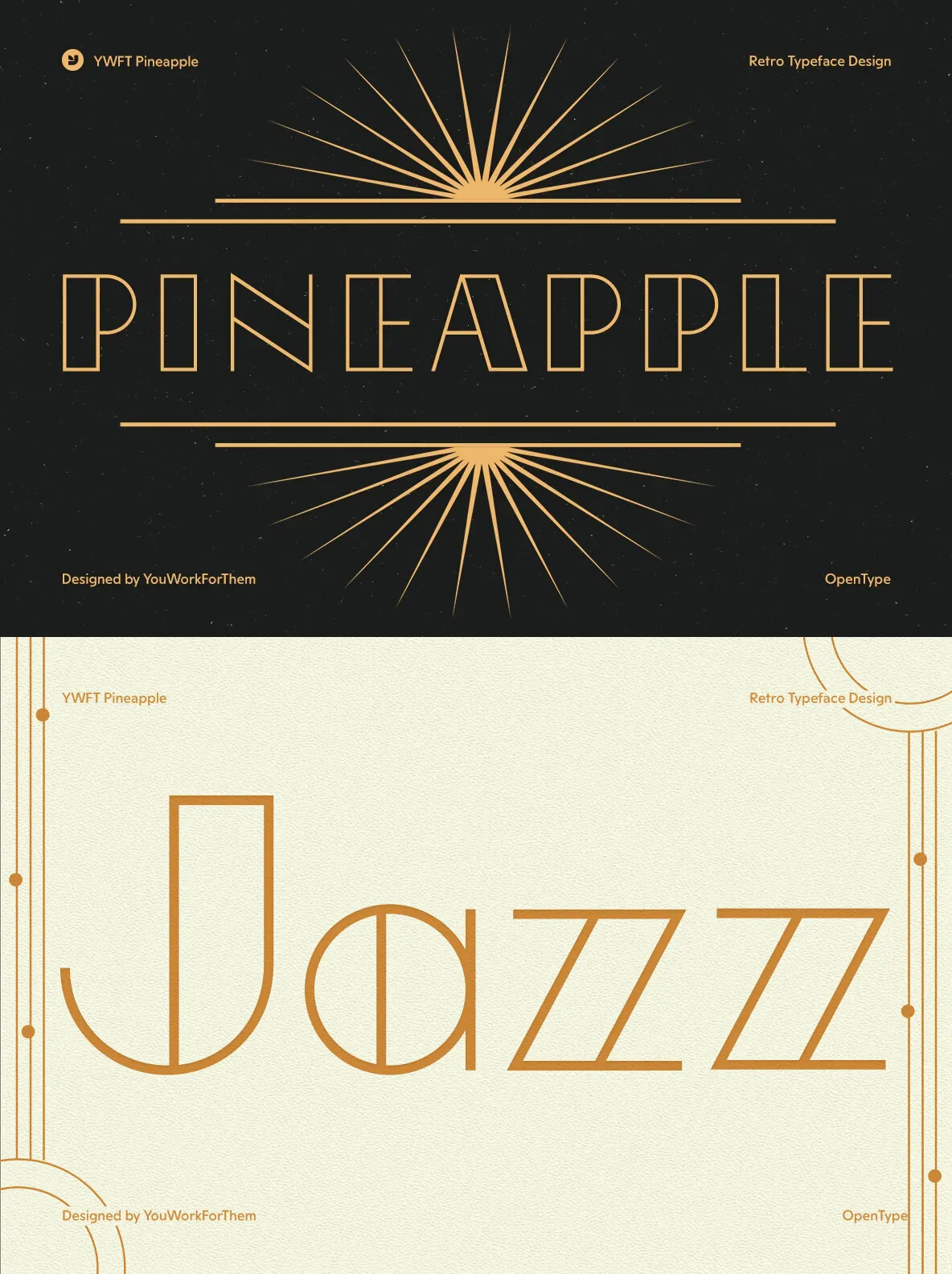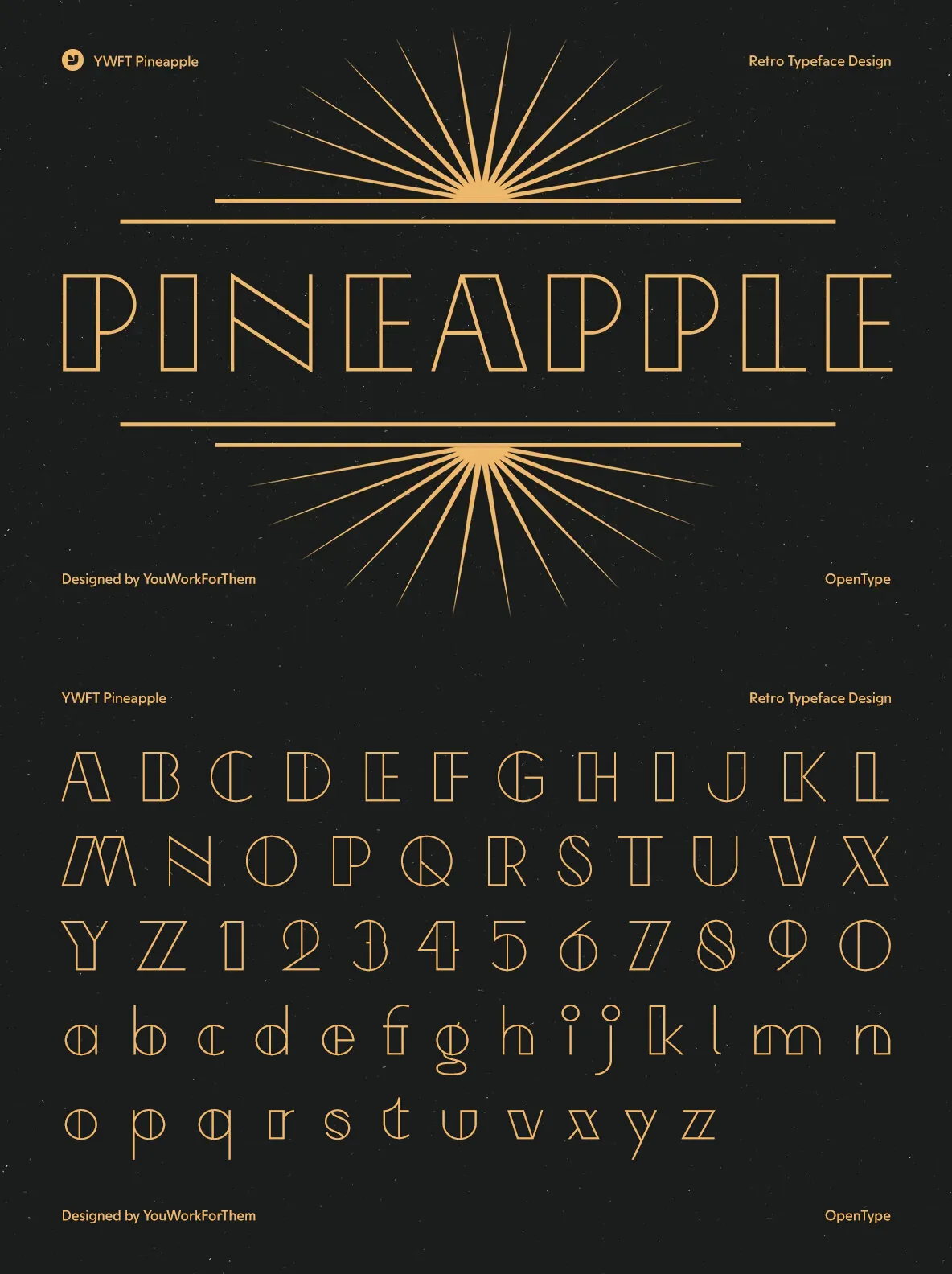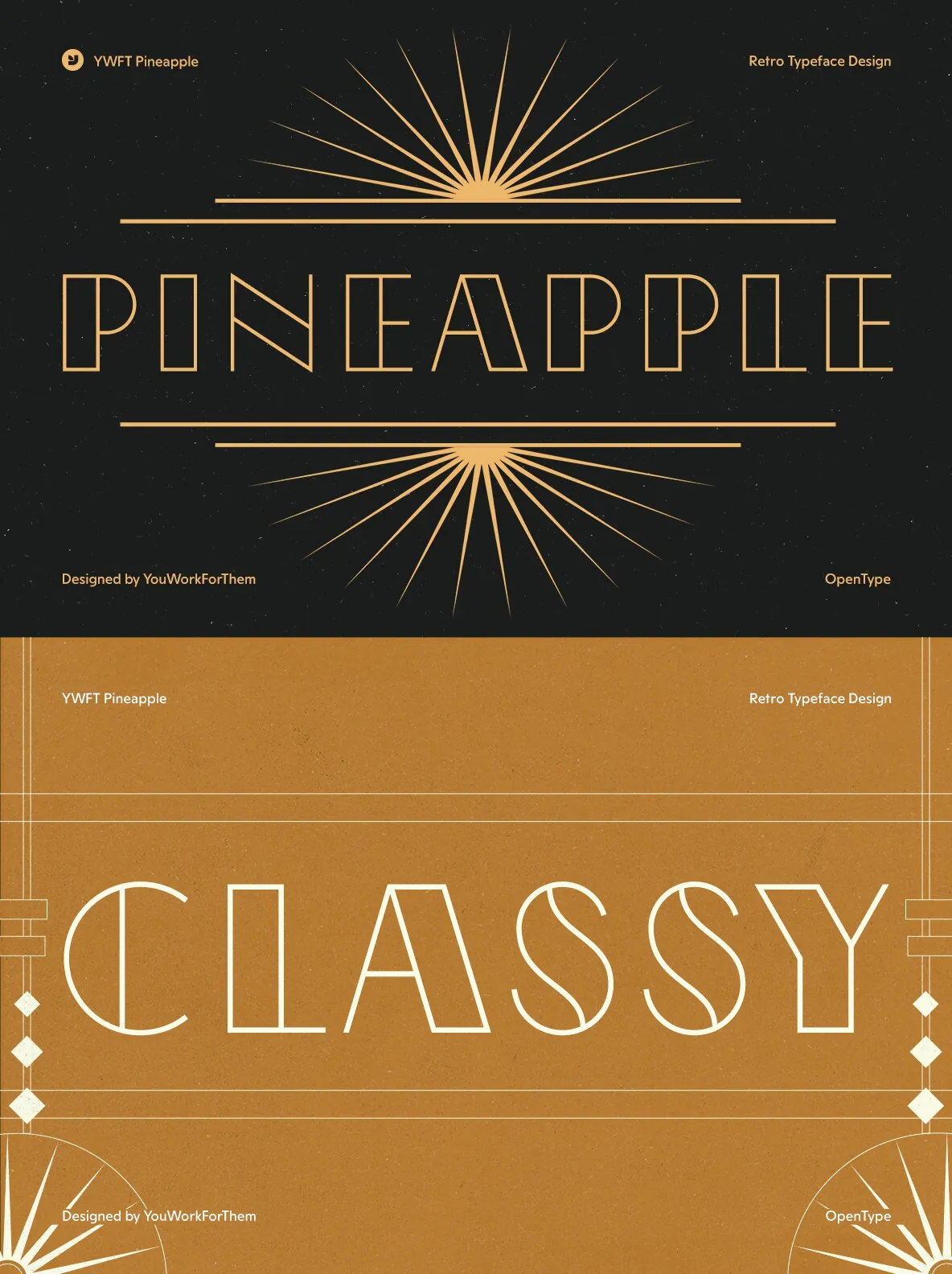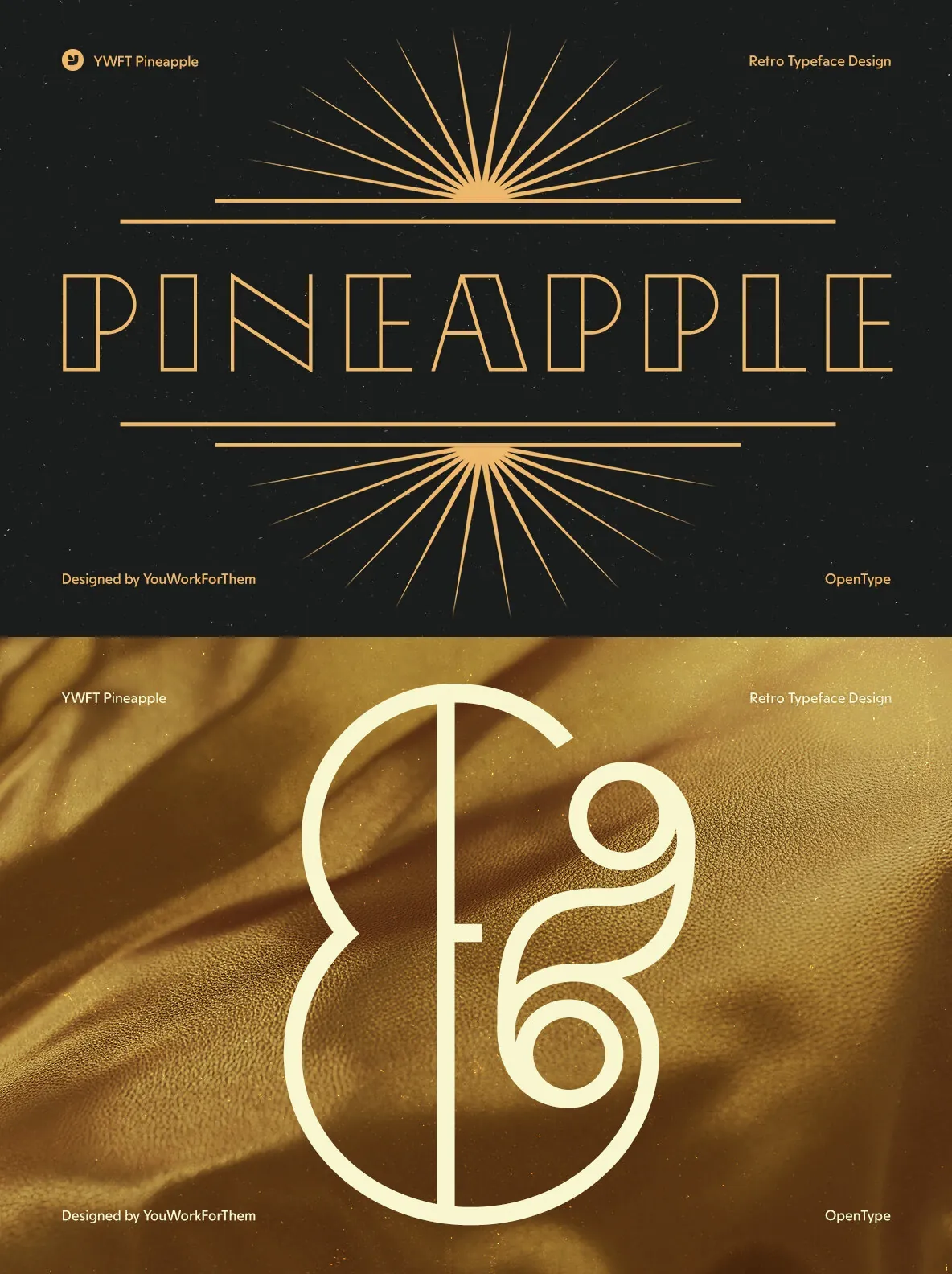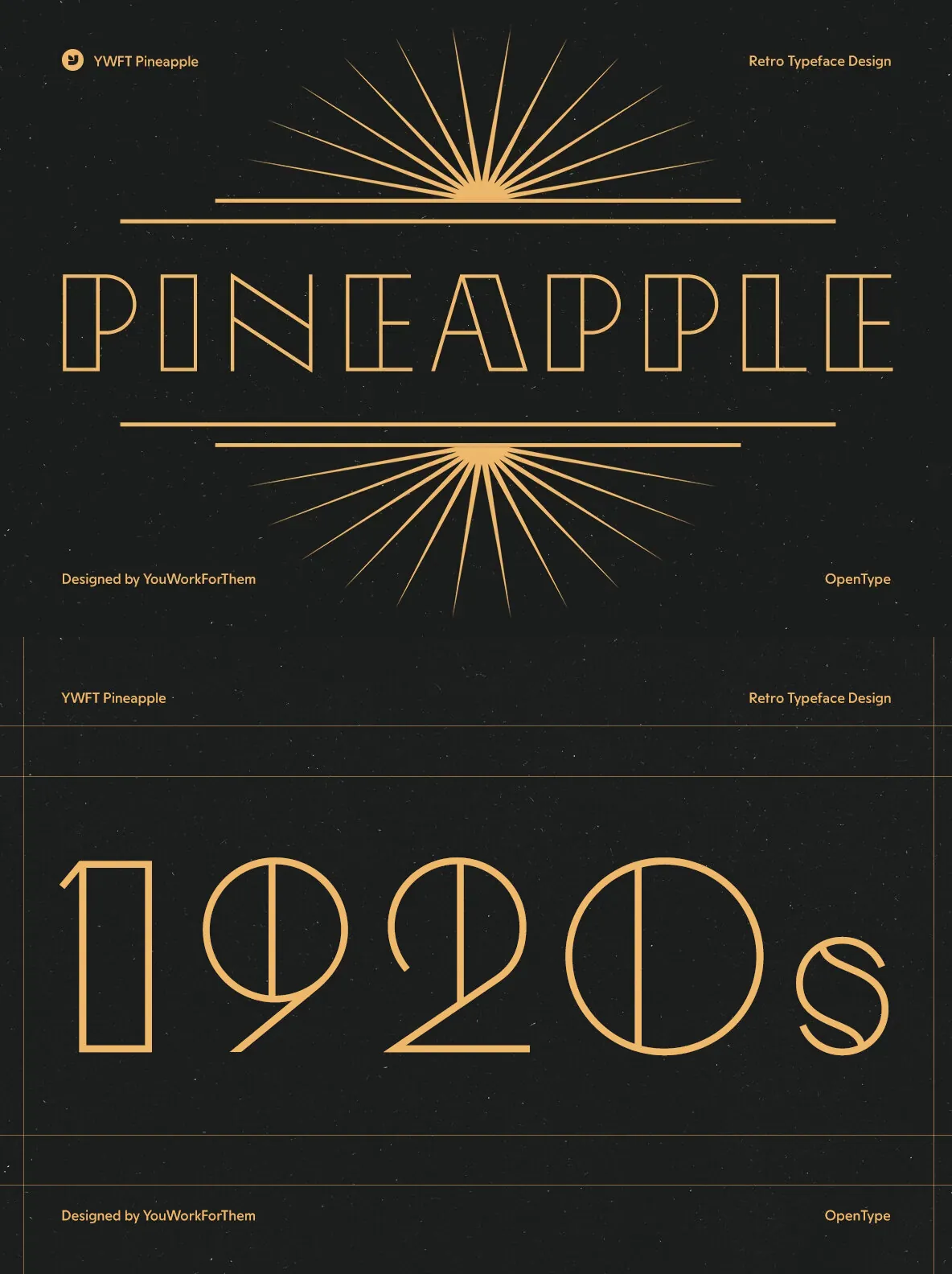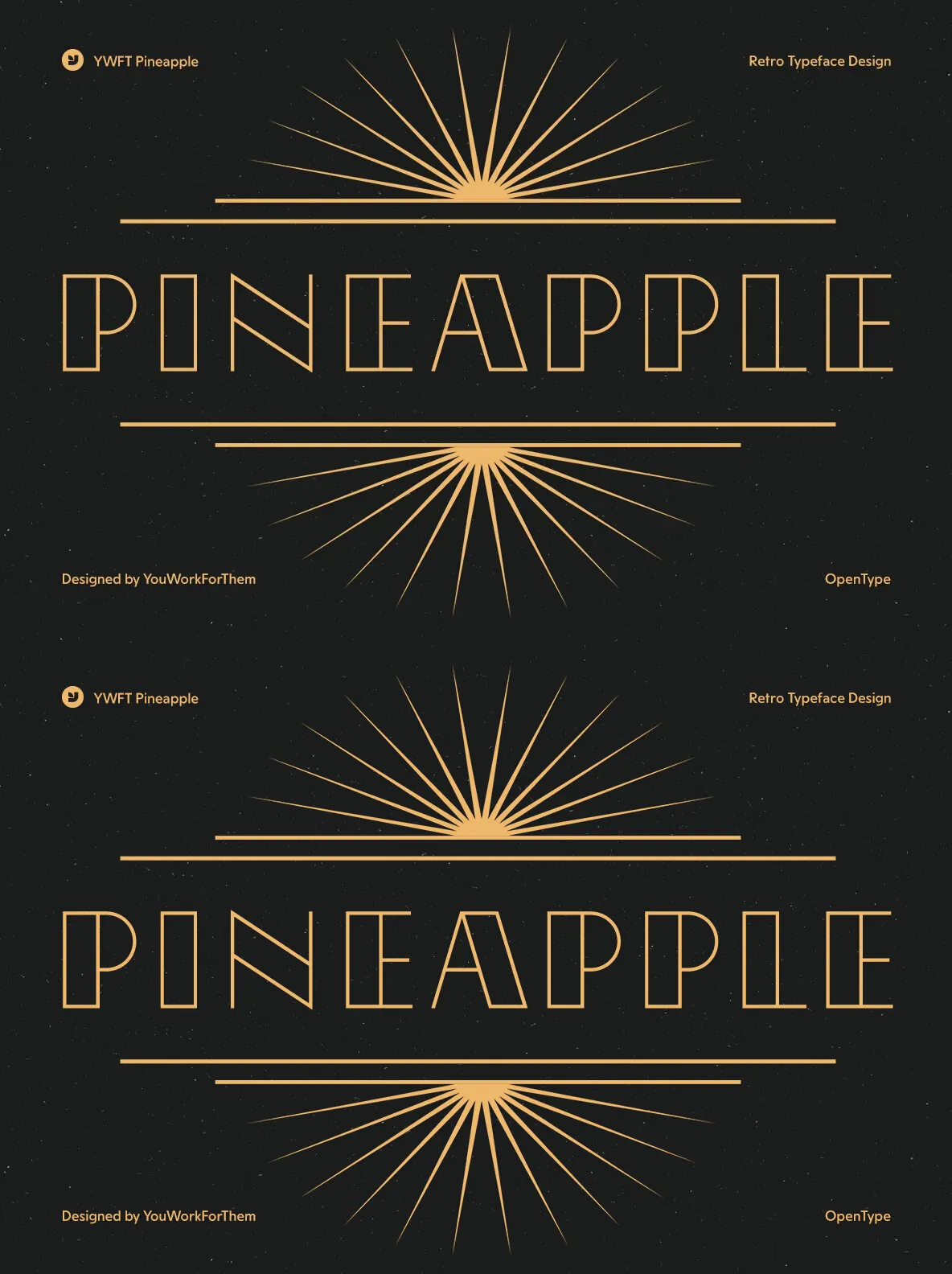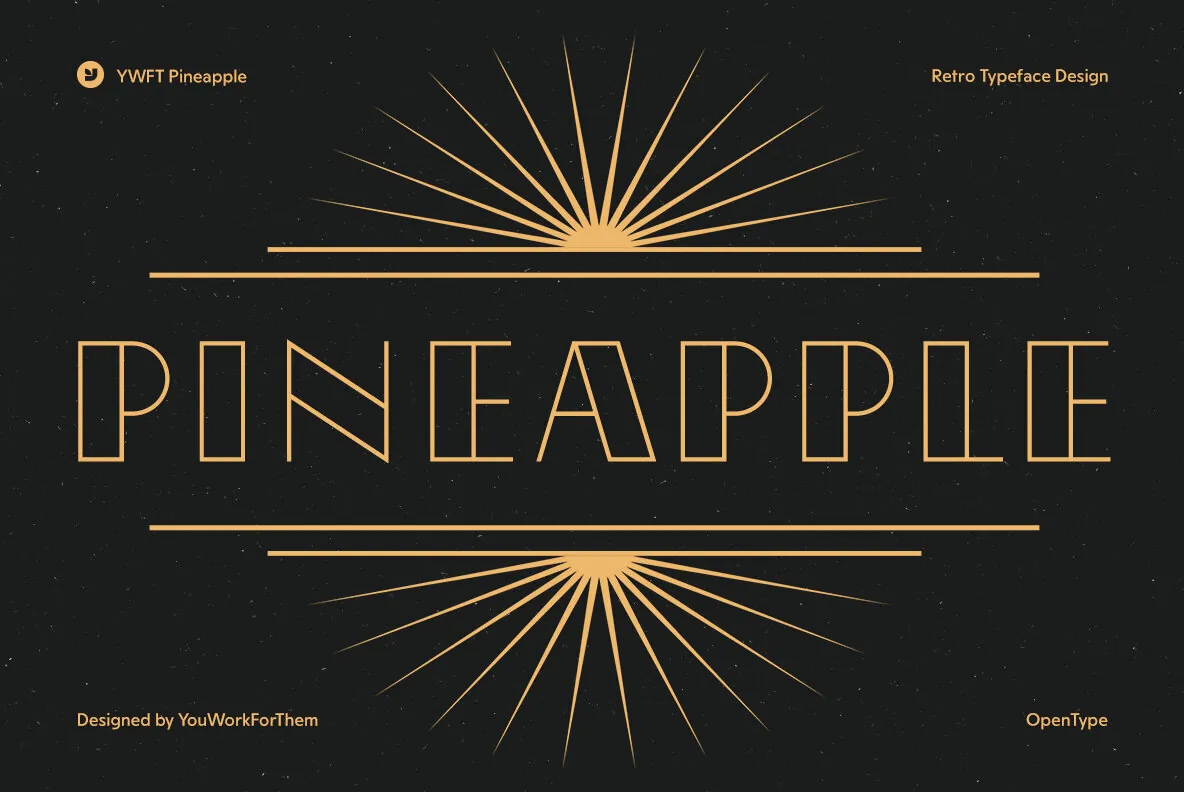
YWFT Pineapple: A Font with Art Deco Roots
YWFT Pineapple is a unique retro font that draws inspiration from the Art Deco period of the 1920s and 1930s but is updated with a modern touch. This font offers a distinctive blend of classic design and contemporary flair, making it versatile for various uses. It has a knack for being juxtaposed with unexpected contexts, such as art, fashion, and literature, adding a unique twist to any project.
Key Features of YWFT Pineapple
OpenType Alternates
: YWFT Pineapple includes several OpenType alternates and OpenType ligatures, allowing you to customize the appearance of certain character combinations.
Versatile Applications
: The font’s distinctive style is ideal for a range of uses, from art and fashion to literature and branding.
Art and Fashion
: The font’s Art Deco roots make it perfect for artistic and fashion-related projects.
Literature & Book Design
: Its distinct look can add character to book covers and literary works.
Branding Design
: YWFT Pineapple’s modern twist is ideal for branding and logos that want to stand out.
Designed and Released by YouWorkForThem
YWFT Pineapple was designed and released by YouWorkForThem in 2009.